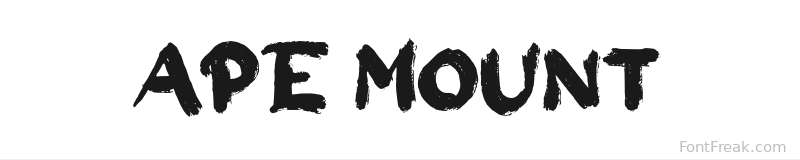
Ape Mount
About Ape Mount
Ape Mount is a striking display font designed by Wahyu Eka Prasetya, characterized by its bold and expressive strokes. This font falls into the decorative category, making it perfect for eye-catching designs that aim to draw attention. The visual characteristics of Ape Mount include a slightly irregular stroke weight that adds a handmade feel, along with a moderate contrast that enhances its unique charm. The spacing is well-balanced, ensuring legibility while maintaining a playful aesthetic. The font's distinctive look is complemented by its artistic flair, making it a favorite for projects that require a touch of personality.
This font is particularly well-suited for a variety of creative applications. It excels in wedding invitations, where its whimsical nature can add a memorable touch to the event. Additionally, Ape Mount is an excellent choice for movie posters, capturing the essence of excitement and drama in a visually engaging manner. Restaurant menus can also benefit from this font, as it can convey a casual yet stylish vibe, enticing diners to explore the offerings. Furthermore, content creators looking to add flair to their blogs or social media graphics will find Ape Mount to be a versatile and appealing option.
Targeted towards graphic designers, small business owners, and content creators, Ape Mount offers an engaging alternative for those seeking to make a statement with their typography. The font stands out not just for its bold visual appeal but also for its ability to convey emotion and personality in various contexts. With its freeware license, users can take advantage of the Ape Mount font free download to infuse their projects with creativity and originality. Overall, this font is a fantastic asset for anyone looking to enhance their design work with a unique touch.